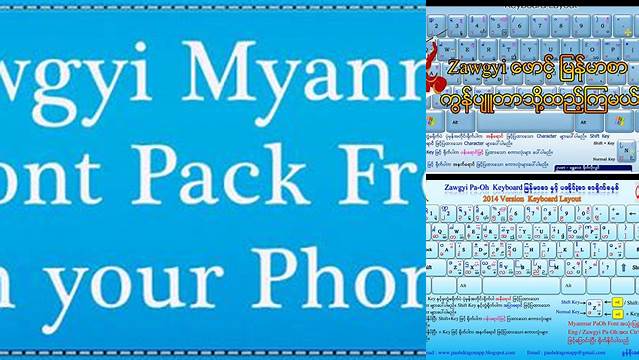
Are you looking for Myanmar Zawgyi font for your devices? You've come to the right place! In this comprehensive guide, we'll explore everything you need to know about the Zawgyi font, including where to find a free download and how to install it on various platforms. We'll also delve into the history and significance of this popular Burmese script, and answer some frequently asked questions to ensure you have a smooth and informed experience. Let's dive in, guys!
Understanding the Myanmar Zawgyi Font
The Myanmar Zawgyi font is a widely used encoding for the Burmese script. It was developed to address limitations in early Unicode support for Burmese, which led to compatibility issues across different devices and operating systems. The Zawgyi font quickly gained popularity due to its ease of use and widespread adoption, becoming the de facto standard for typing and displaying Burmese text.
However, it's essential to understand that Zawgyi is not a Unicode standard. Unicode is a universal character encoding standard that aims to represent all the world's writing systems in a consistent manner. While Zawgyi provided a practical solution for its time, its non-Unicode nature can lead to challenges in data exchange and long-term compatibility. Despite these challenges, many users still prefer Zawgyi due to its familiar layout and established presence in the Burmese digital landscape. The encoding method of the Zawgyi font is based on the position of characters, which means that some characters are displayed incorrectly when used with standard Unicode fonts. This is a crucial point to remember if you're working with Burmese text across different platforms or collaborating with others who may use Unicode.
Before downloading and installing, it's helpful to have a basic grasp of what the font entails. Essentially, the Zawgyi font allows your computer or device to display Burmese characters correctly. Without it, Burmese text might appear as boxes or jumbled symbols. This is because your system needs the specific glyphs (visual representations of characters) contained within the Zawgyi font to render the script accurately. Understanding this foundational aspect will make the installation process and troubleshooting any potential issues much easier. So, if you're new to Burmese fonts, just think of Zawgyi as the key that unlocks the ability to read and write Burmese on your digital devices. This makes the digital world much more accessible for Burmese speakers and writers. You guys should definitely consider this if you're working with Burmese language content.